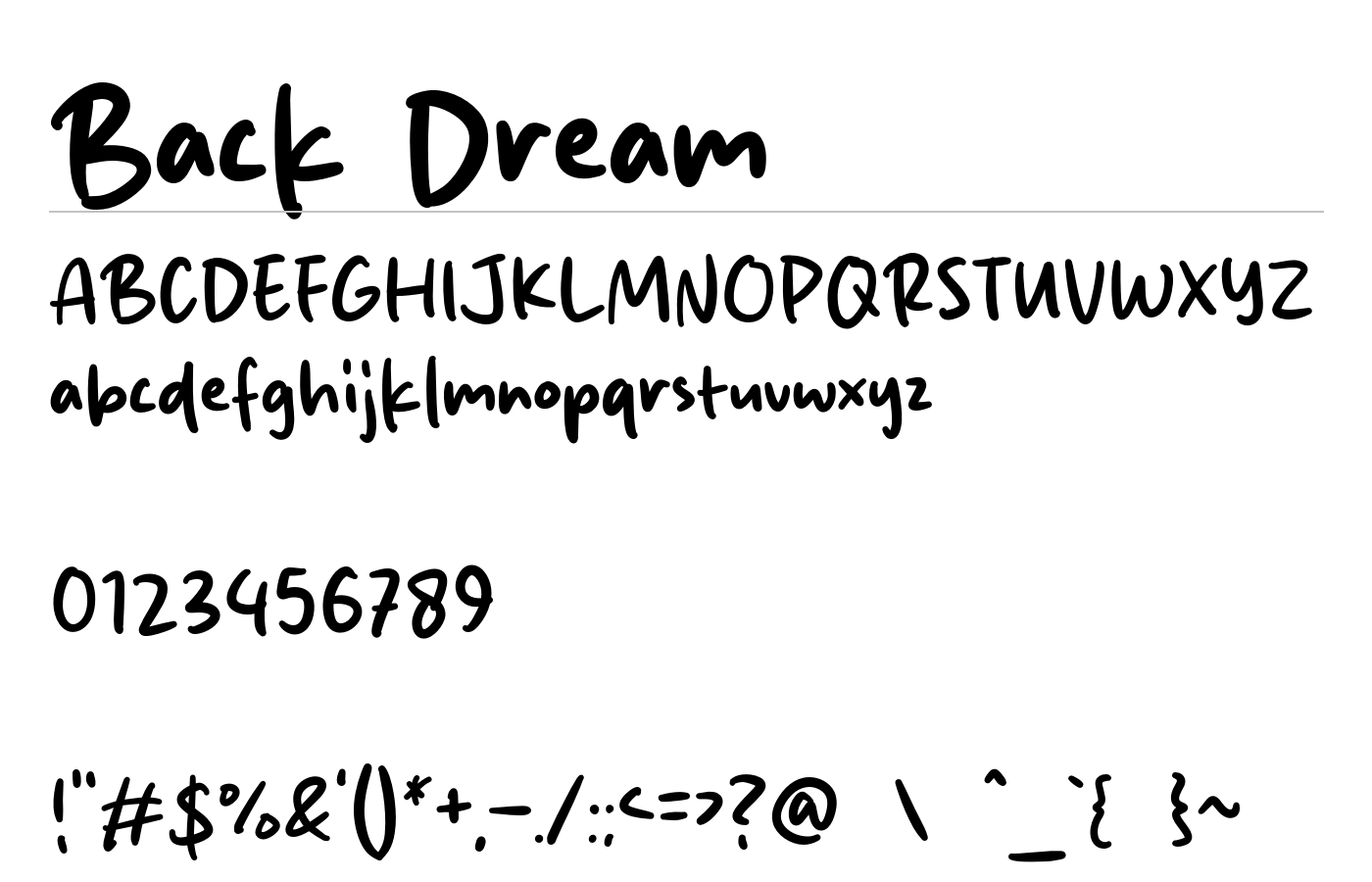
Back Dream is a casual, handwritten sans serif font with a friendly and approachable vibe. Its medium weight and moderately wide letterforms combine a playful, informal style with clear readability, making it perfect for inviting headlines, creative branding, and fun, personal projects. This font works well where a natural, hand-drawn feel is desired without compromising legibility or modern appeal.
Back Dream Font
About Back Dream Font